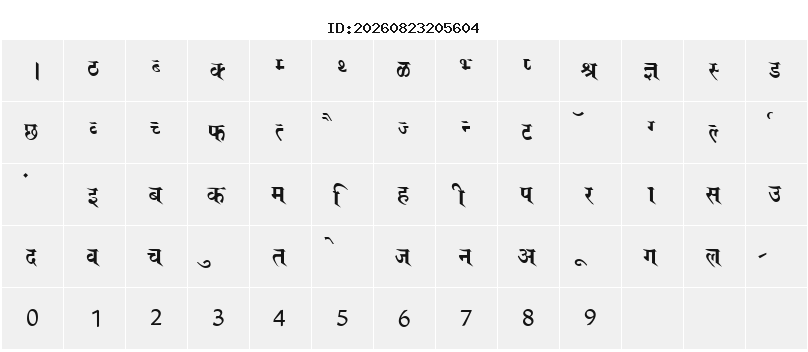
Saroj Preview
• Font Name: Saroj
• Full Font Name: Saroj
About Saroj.ttf
Saroj.ttf is a modern, elegant sans-serif font designed for ultimate readability and visual harmony. Perfect for branding, headlines, web design, and print materials.